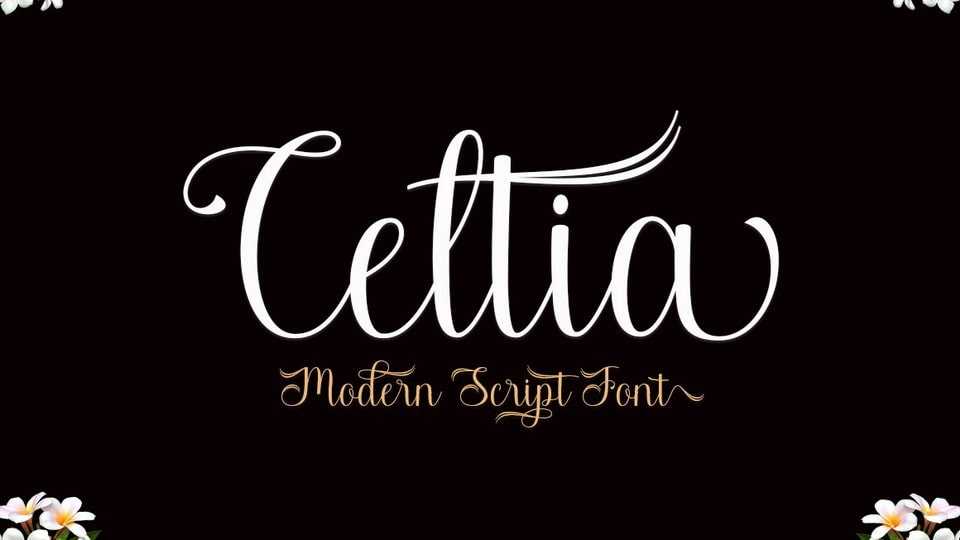
Download Celtia font, a unique and elegant handwritten typeface. Celtia looks beautiful on a variety of designs requiring a personalized style, such as wedding invitations, thank you cards, weddings, greeting cards, logos and so on.